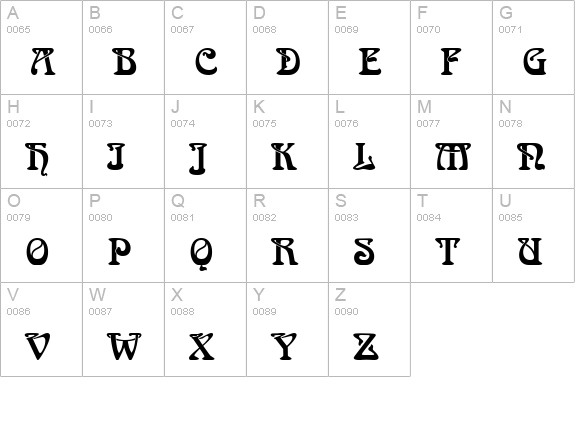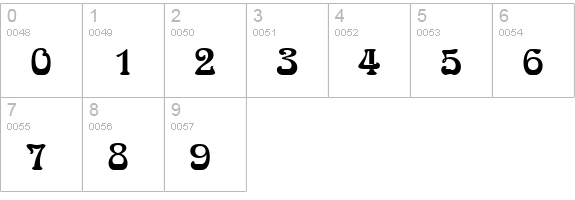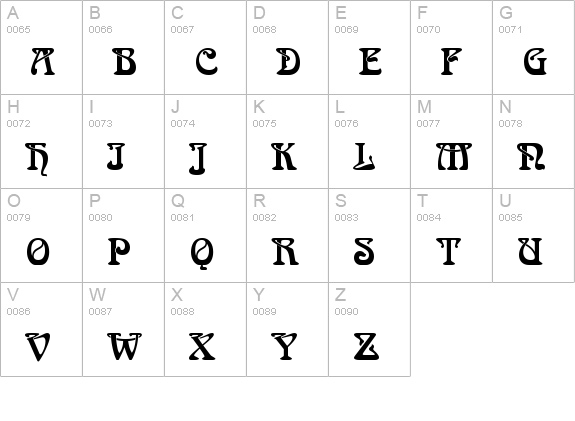
ArnoldBoeD font is a stylish and modern typeface that adds a touch of sophistication to any design project. This elegant font features sleek lines and unique letterforms that make it stand out from the crowd. With its bold and eye-catching appearance, ArnoldBoeD font is perfect for creating attention-grabbing headlines, logos, and branding materials. The best part? ArnoldBoeD font is available for free download at FontsMarket.com! That's right, you can enhance your creative projects with this stunning font without having to spend a dime. Whether you're a professional designer or just looking to spruce up your personal projects, ArnoldBoeD font is sure to impress with its versatility and visual appeal. Don't miss out on the opportunity to elevate your designs with the free ArnoldBoeD font. Download it today and unlock a world of creative possibilities!